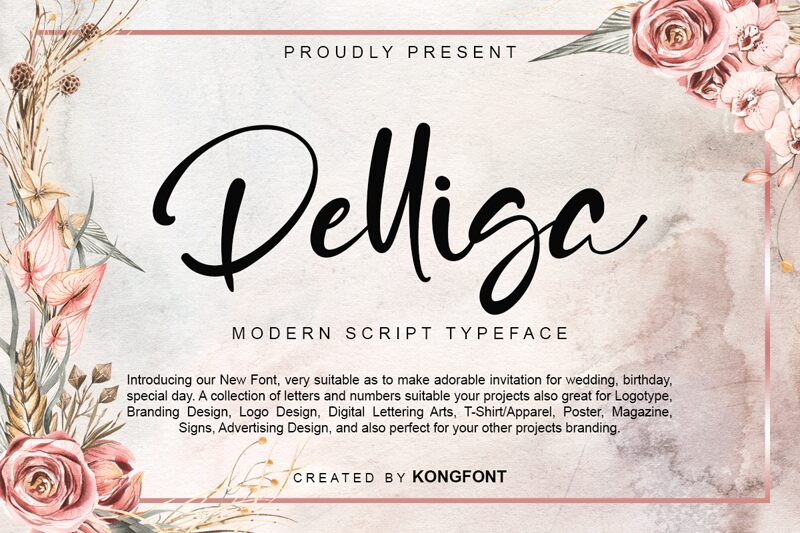
Delliga
Delliga, the latest creation by Kong Font, brings a fresh take on handwritten fonts. Its semi-light weight lends itself perfectly to projects that require a delicate touch without sacrificing legibility. From wedding invitations to product packaging, Delliga adds charm and personality to any design. With its playful yet elegant style, this typeface is perfect for creating logos, branding materials, or social media graphics that will make your brand stand out from the crowd. Try Delliga today and see how it can elevate your next project!